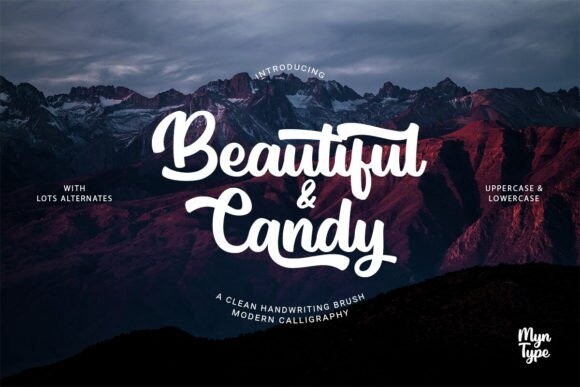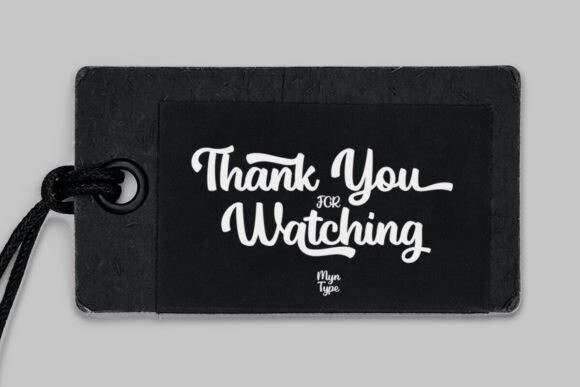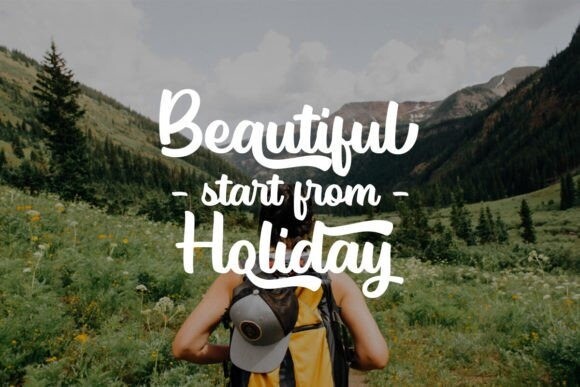
Beautiful Candy Font
Beautiful Candy Font. A clean handwriting font with consistent, bold neat strokes and a casual touch. It is perfect for logos branding, apparel, elegant websites, magazines, wedding invitations, social media posts or simply to use to express words over a background and anything else your heart desires! So, it is suitable for any design.